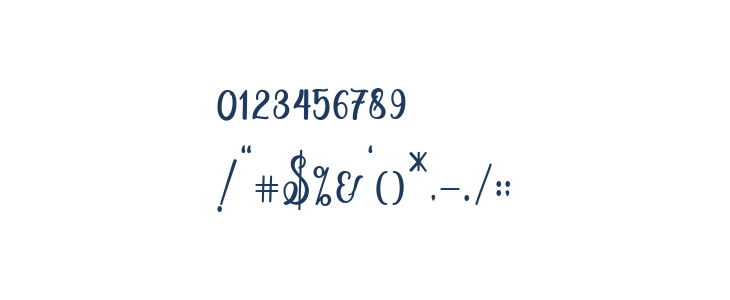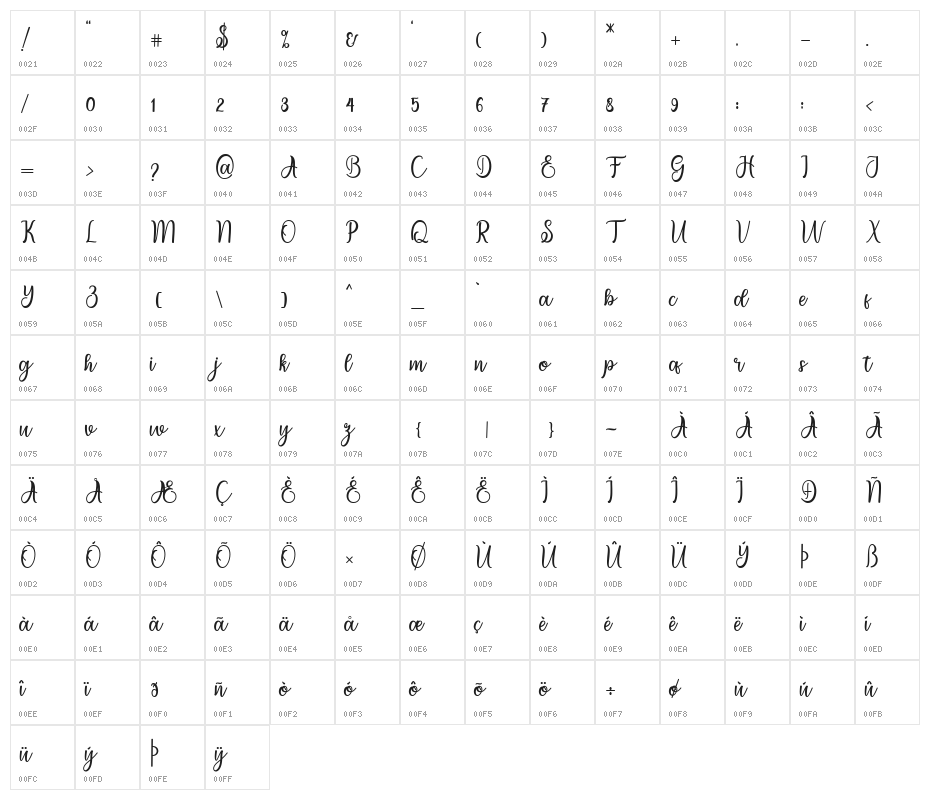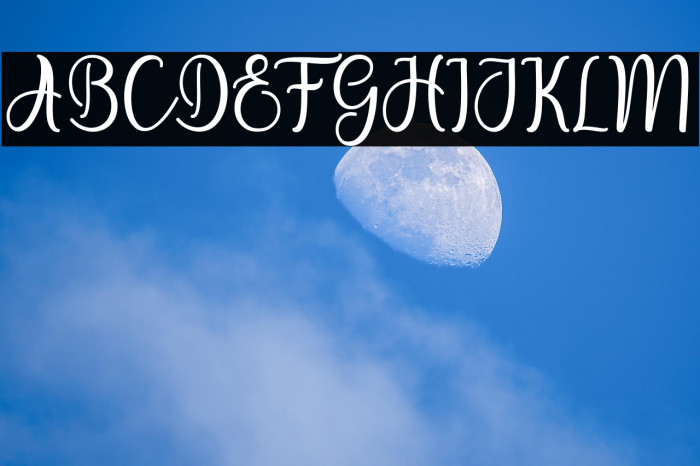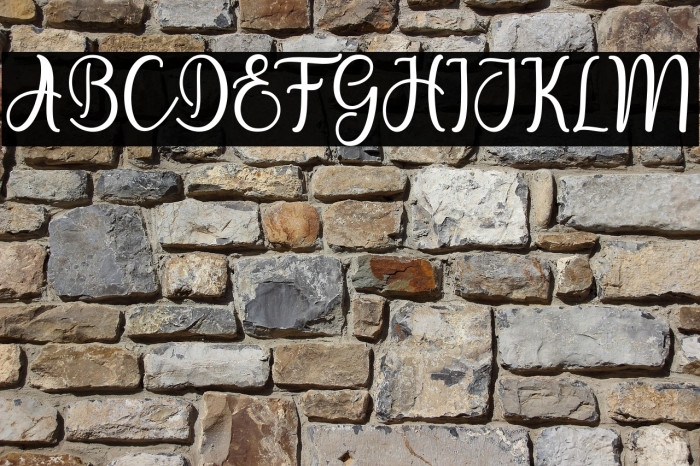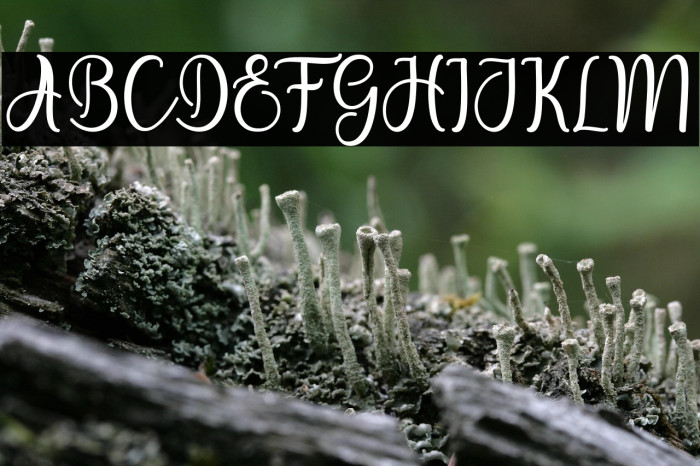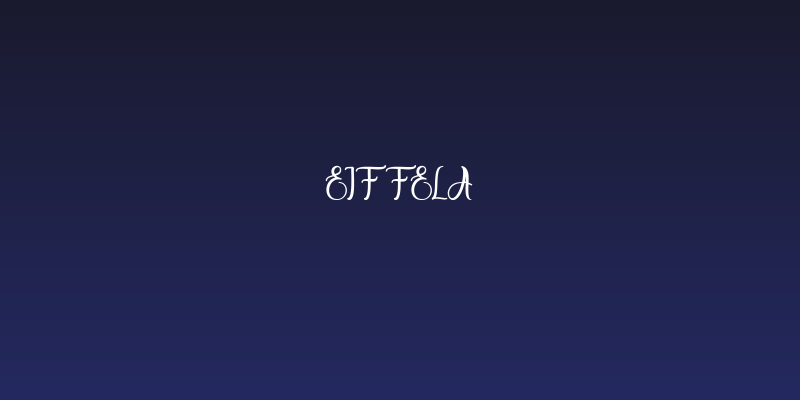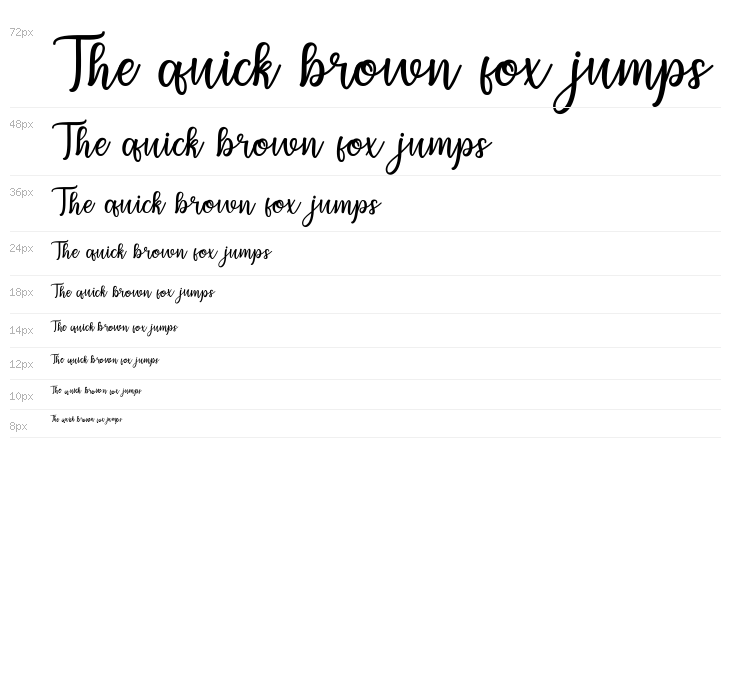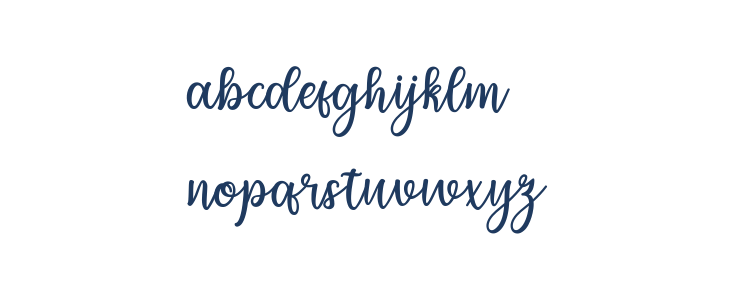
eiffela Font
eiffela Description
This font features a playful and elegant script style with a flowing, cursive design. The uppercase letters are characterized by their tall, looping ascenders and descenders, giving them a whimsical and artistic flair. The lowercase letters maintain a consistent flow, with smooth curves and a slightly informal touch. Numbers and special characters are designed to match the overall aesthetic, ensuring a cohesive look across all text. The font's style is both decorative and functional, making it suitable for a variety of creative applications.
| Use Case | Logos, Invitations, Decorative Text |
| Proposed Projects | Ideal for wedding invitations, greeting cards, branding, and decorative signage. |